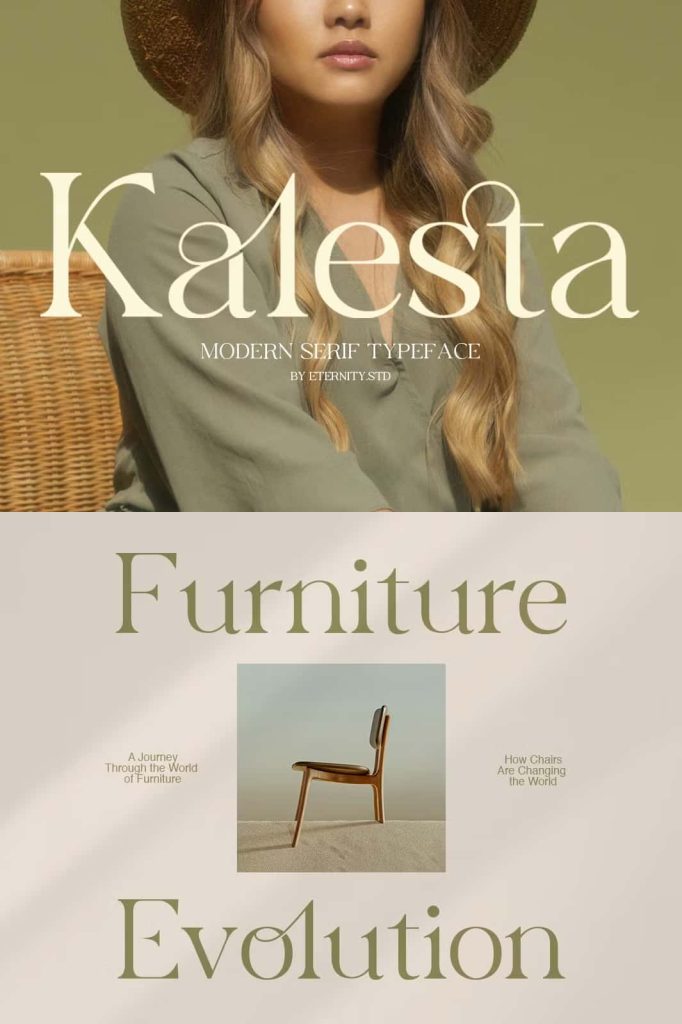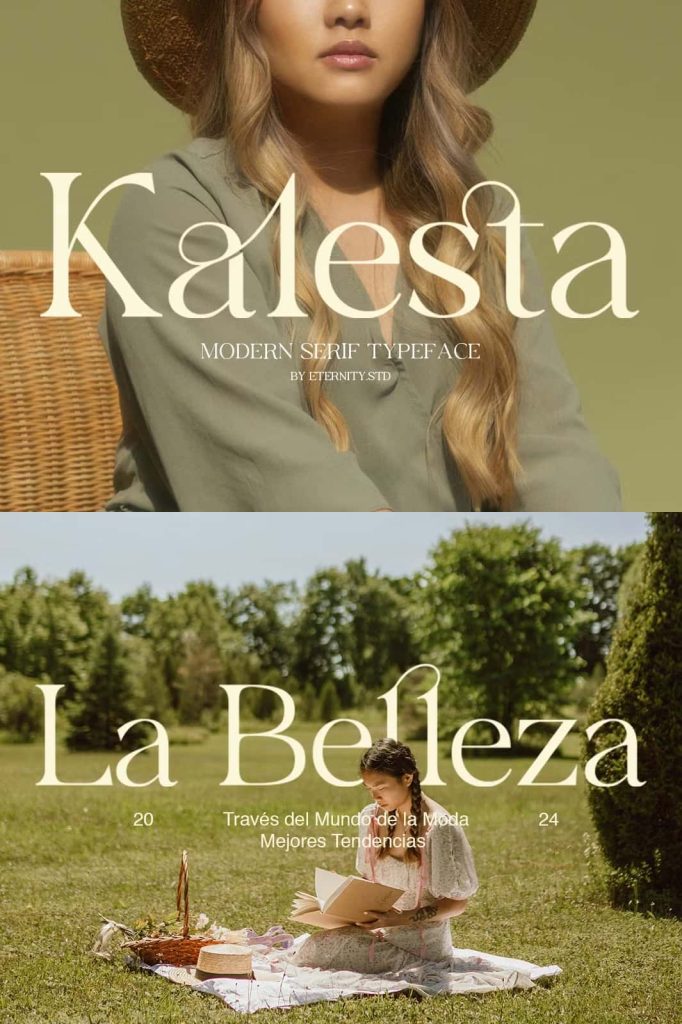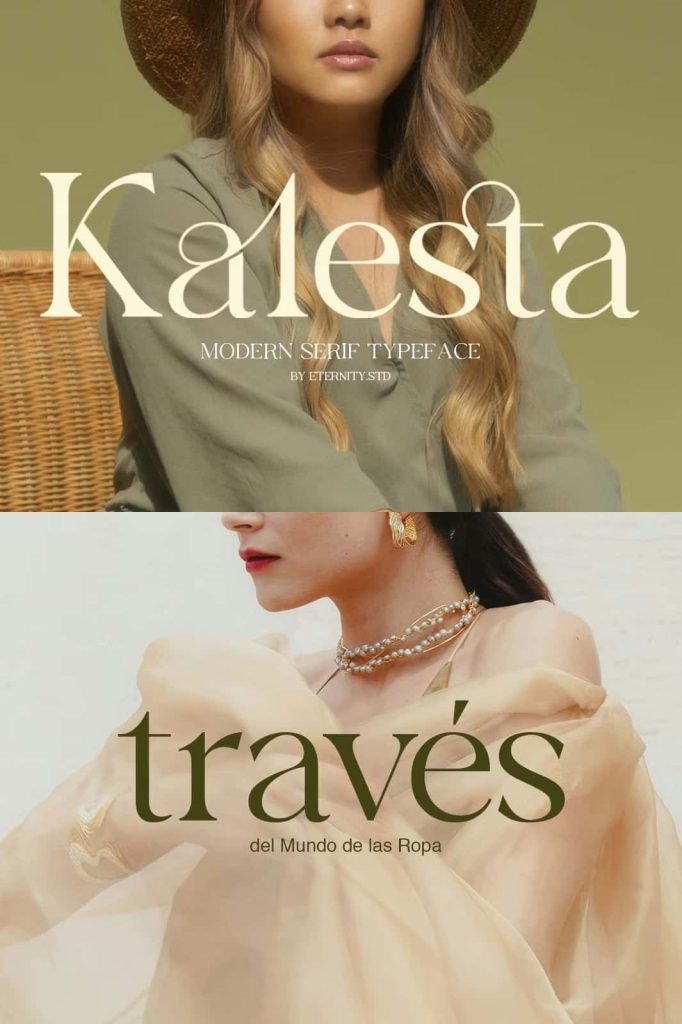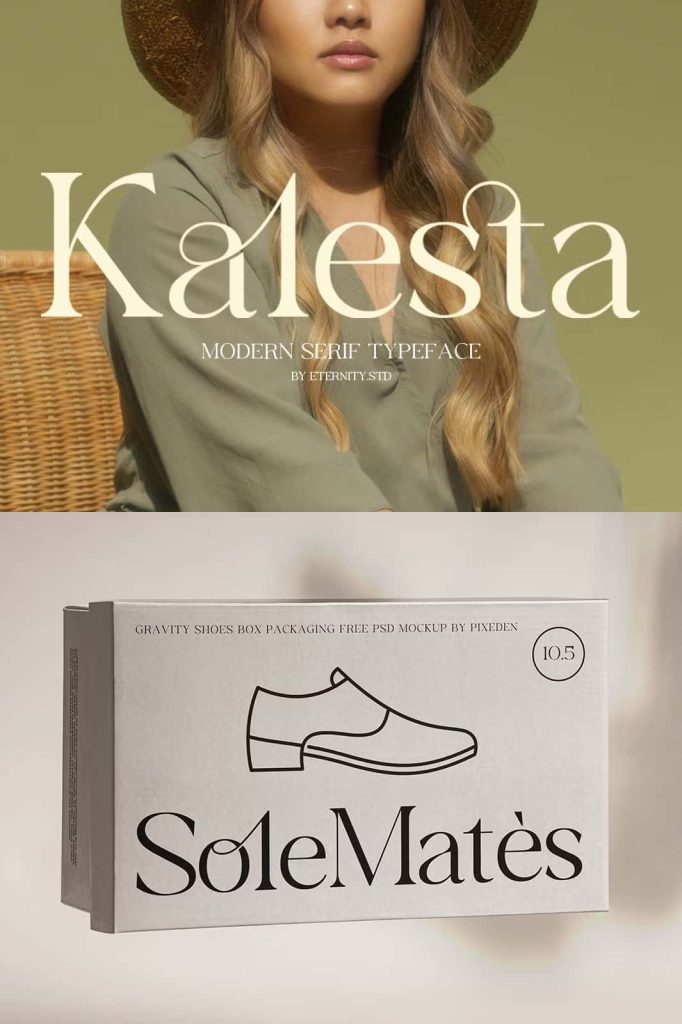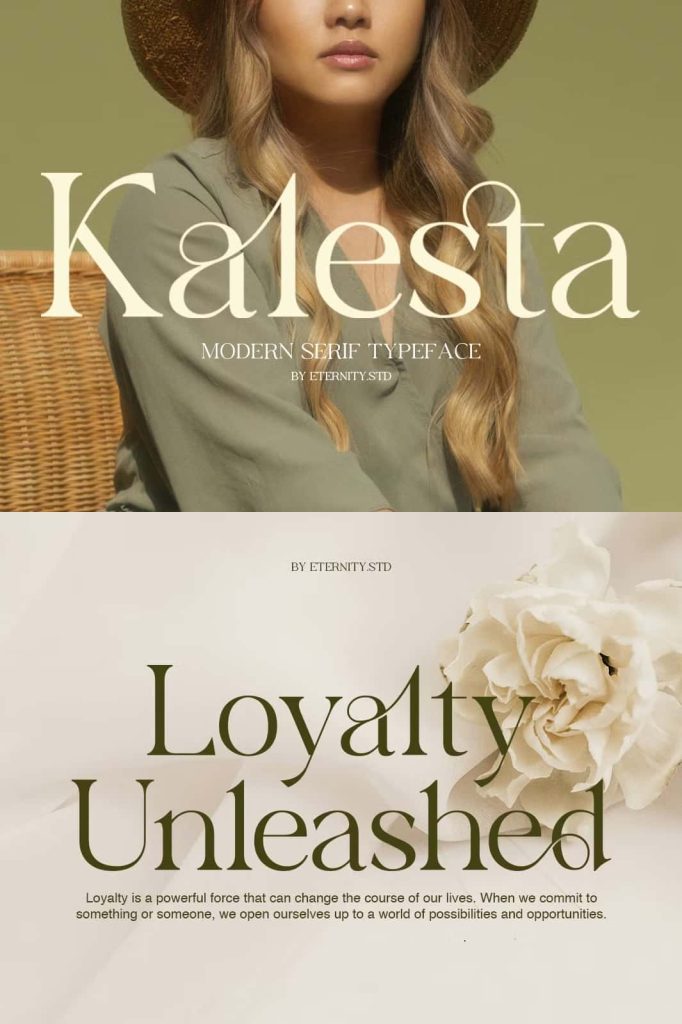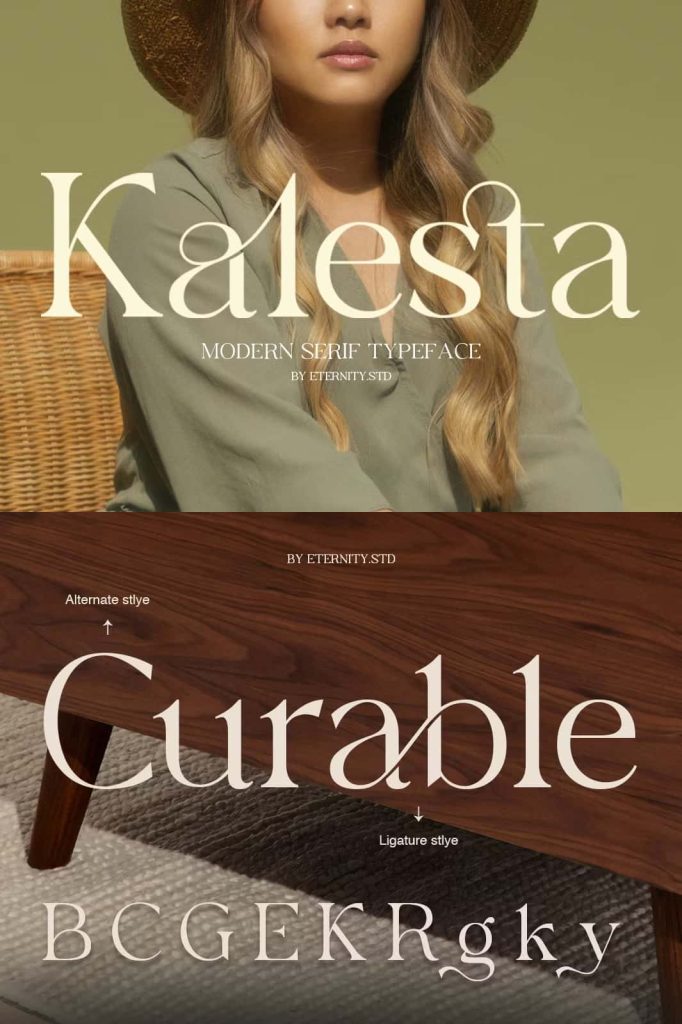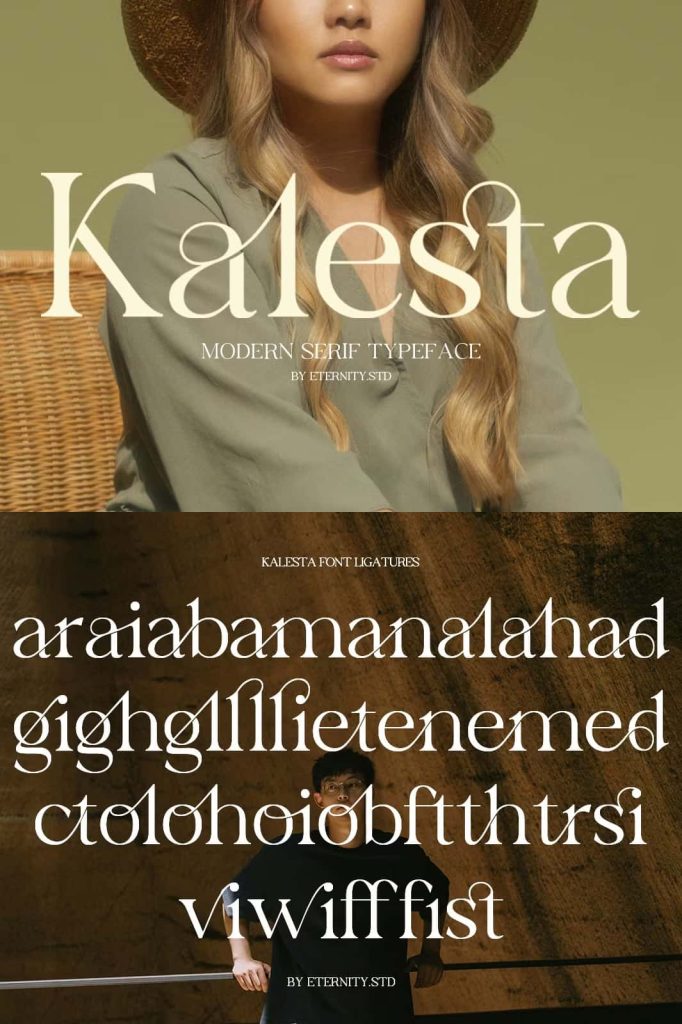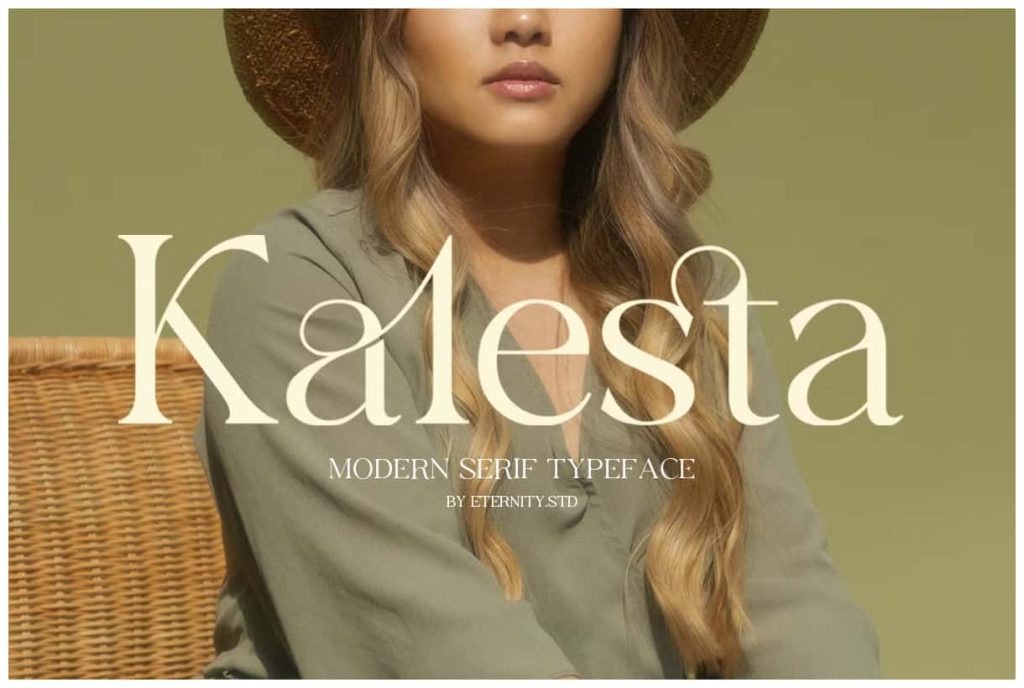
Kalesta Modern SerifleastedFebruary 20, 2025Fonts Introducing the Kalesta Modern Serif! This font isn’t just about style—it’s about making your designs luxury with elegance. Download